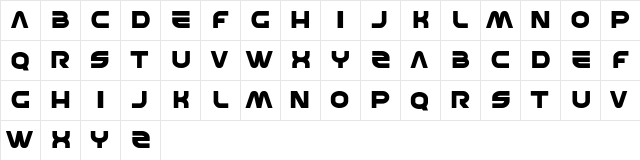
SHEDEVR Bold
Design Context for SHEDEVR Typeface
SHEDEVR is a composed and adaptable typeface that performs quietly and consistently across a wide range of design contexts. Its bold stroke weight gives it real presence on the page.
Pro Tip: Pair SHEDEVR with a font of contrasting weight or personality to build a more expressive typographic hierarchy.